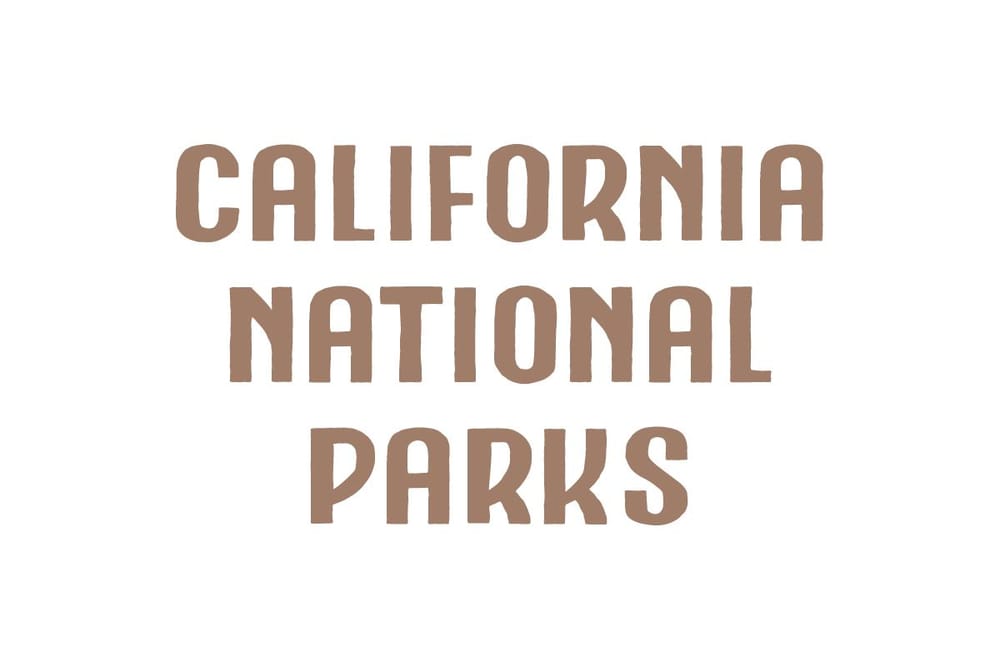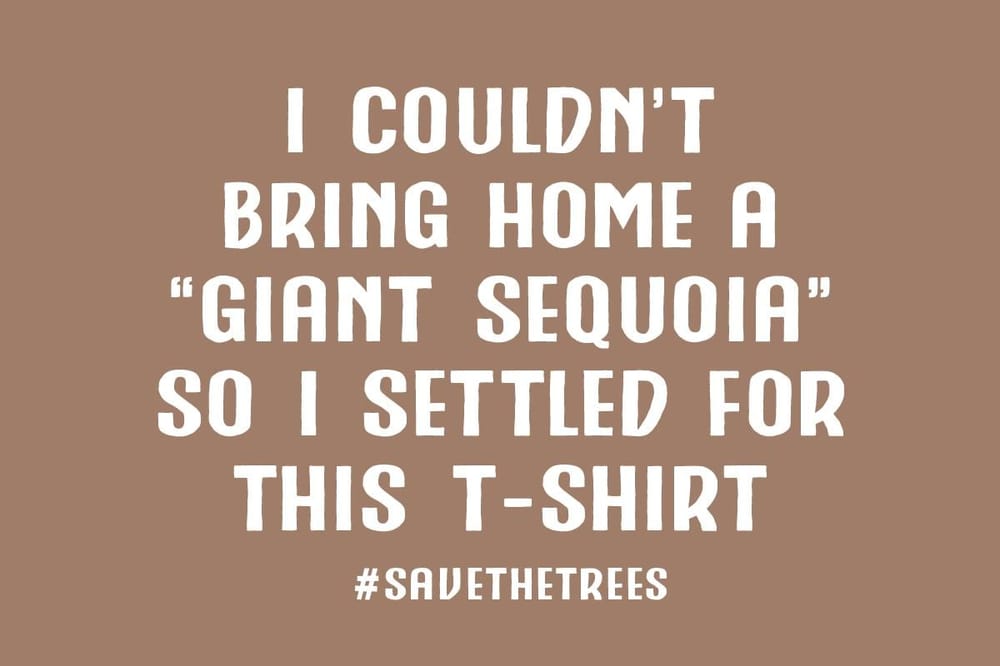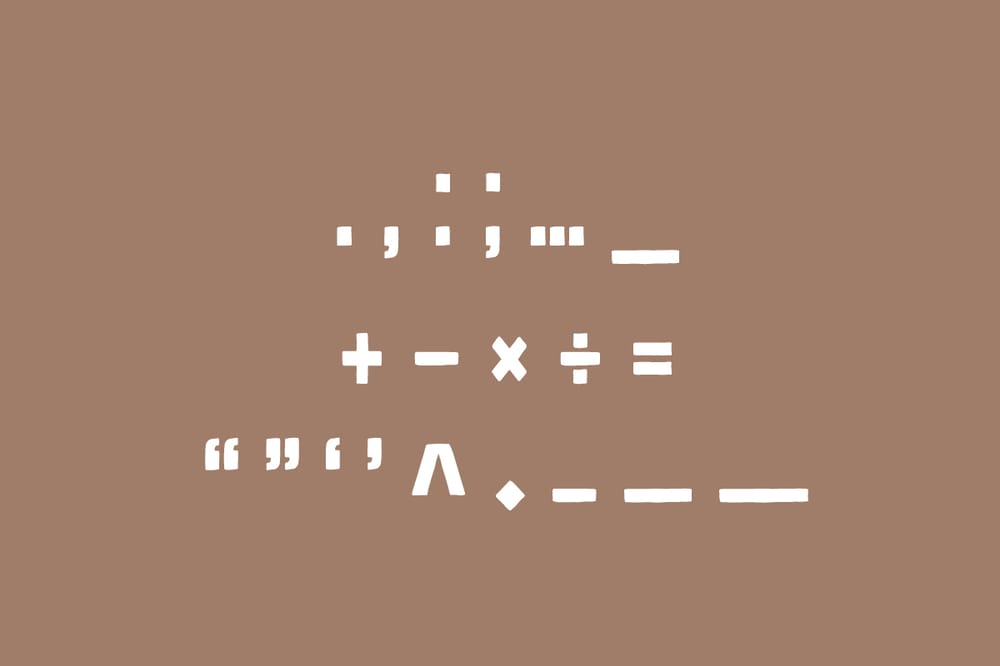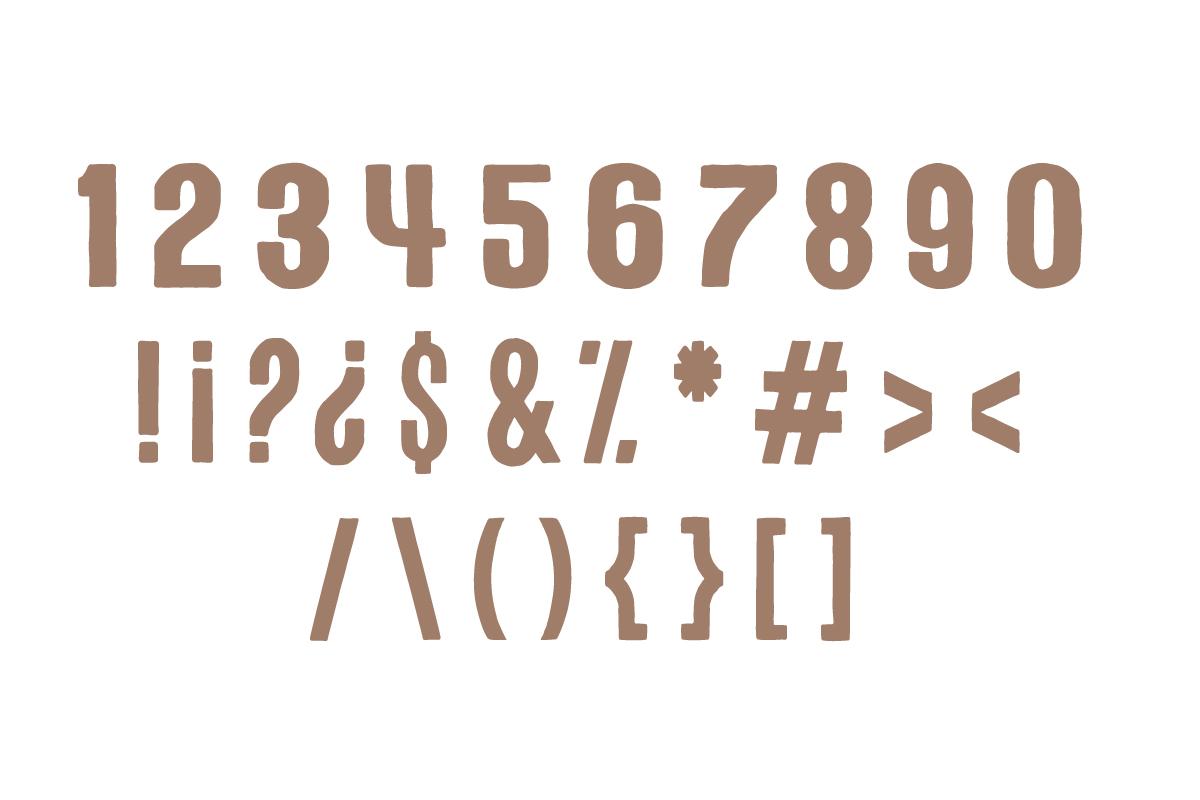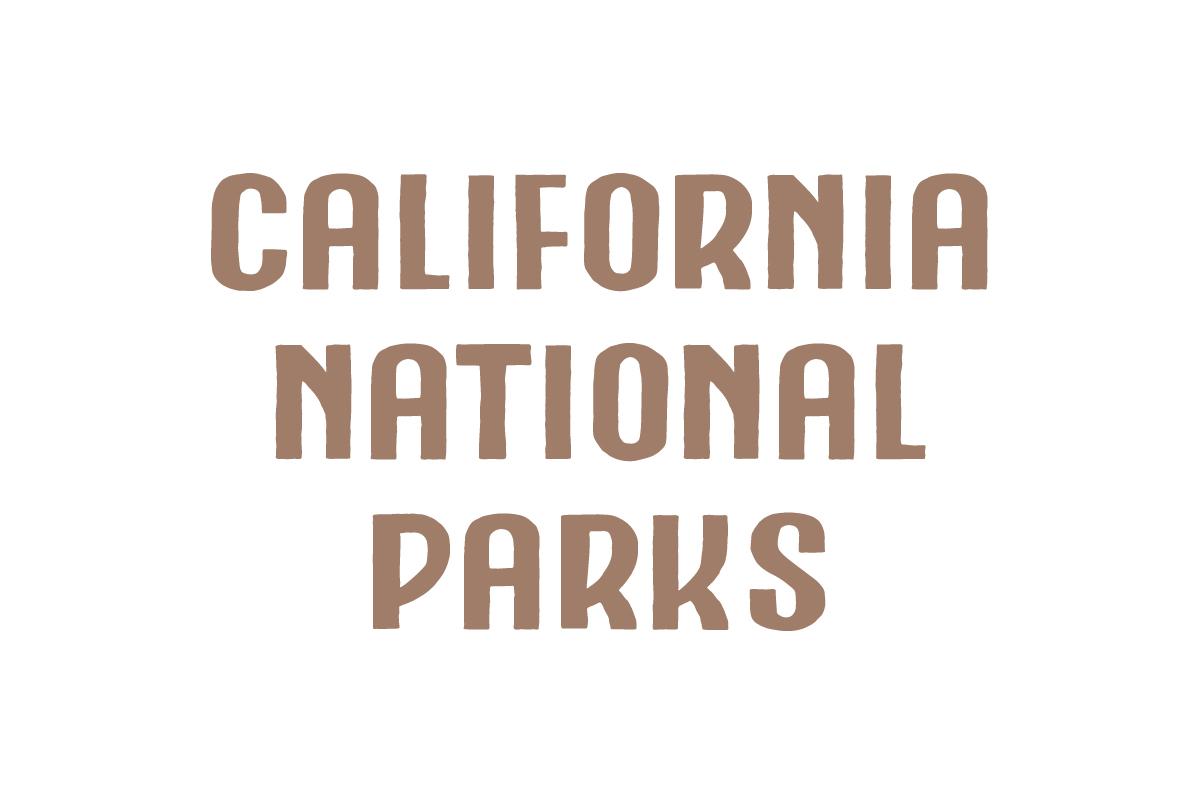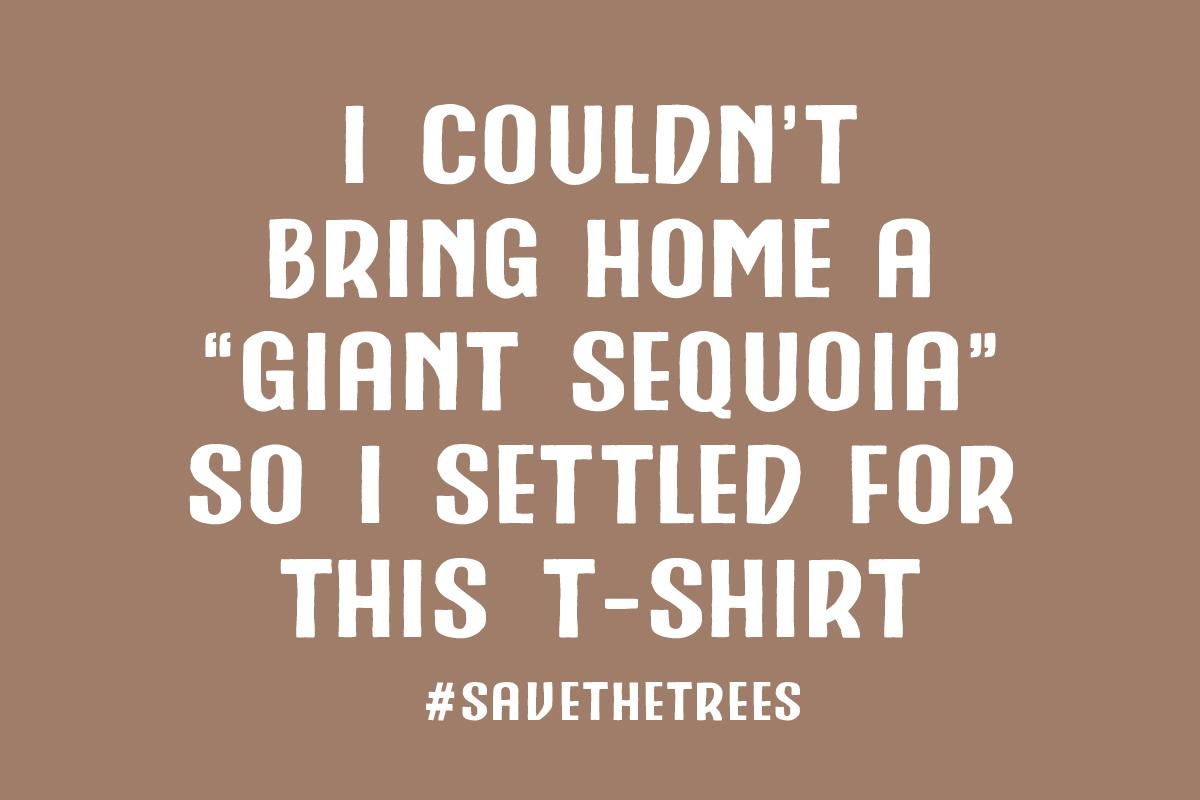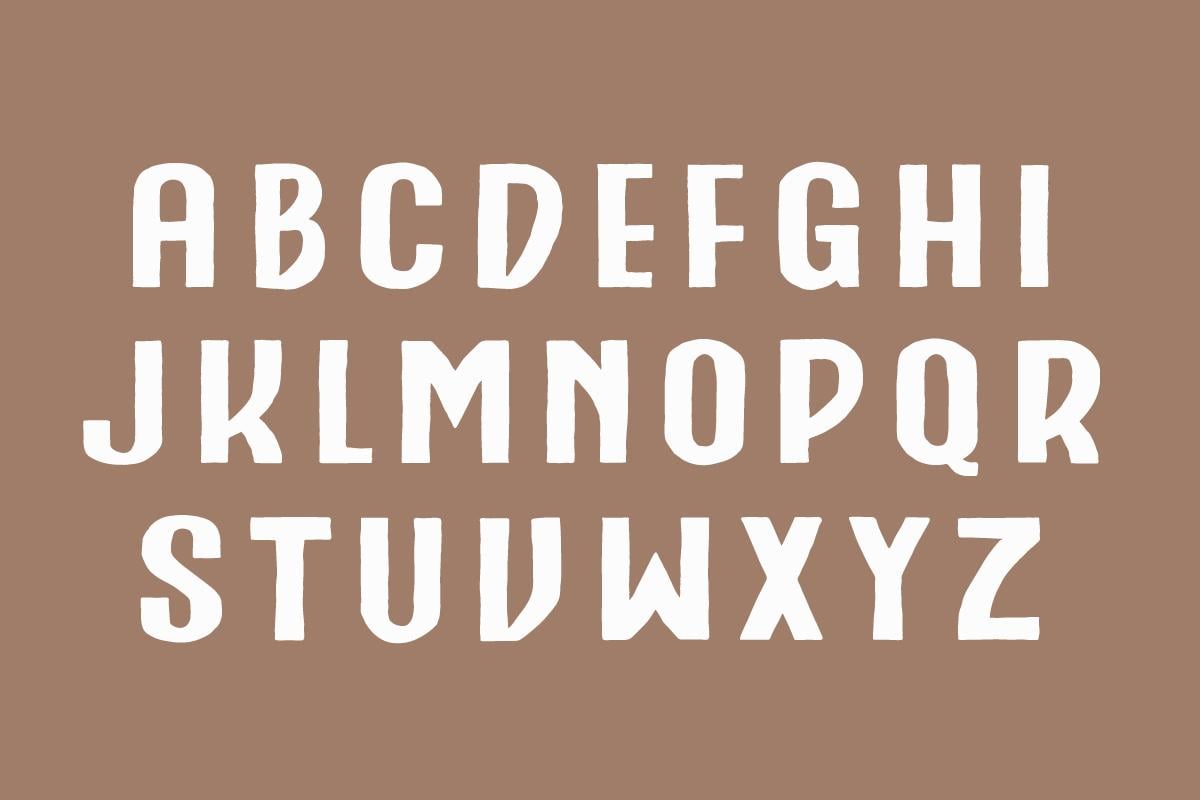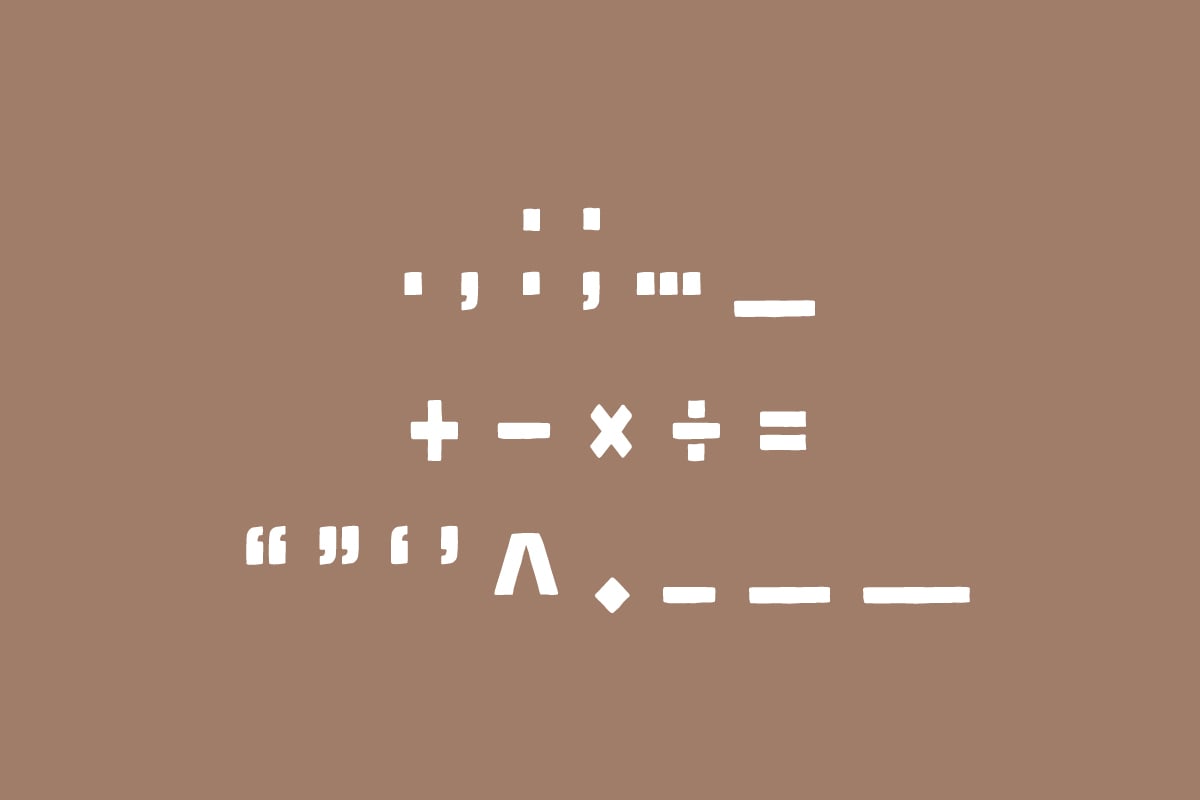
The Redwood Font
The Redwood Font - student project
Say hello to "REDWOOD." This is a hand crafted condensed display font. It includes all uppercase letters, numbers, and some special characters. Check it out in action below. I would love to hear your thoughts and any feedback you have.